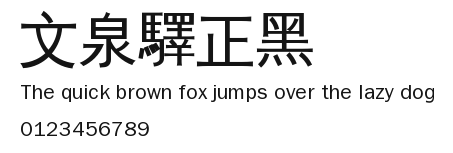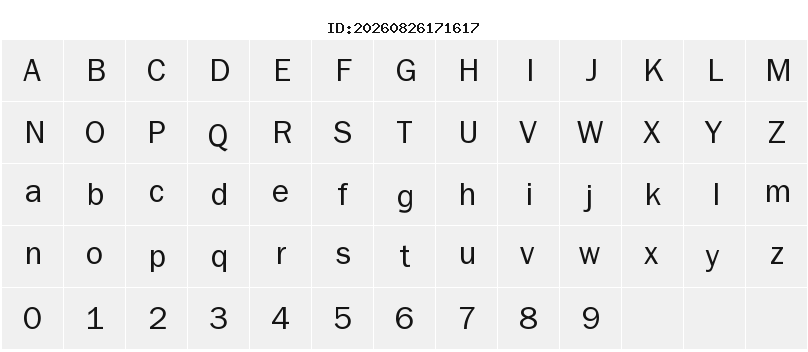
文泉驛正黑 Preview
• Designer: Qianqian Fang
• Description: 文泉驛正黑
About 文泉驛正黑.ttf
文泉驛正黑.ttf is a modern, elegant sans-serif font designed for ultimate readability and visual harmony. Perfect for branding, headlines, web design, and print materials.